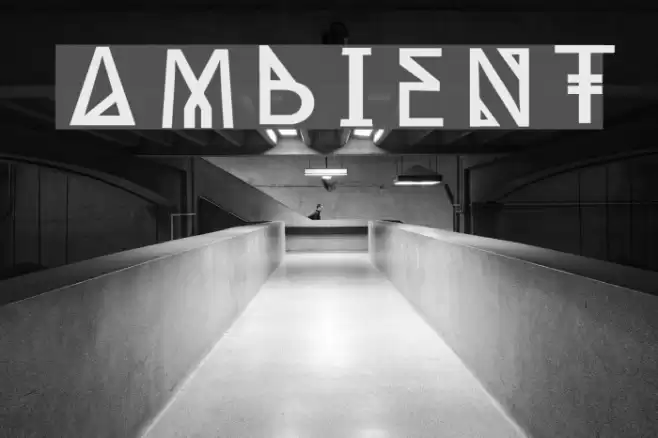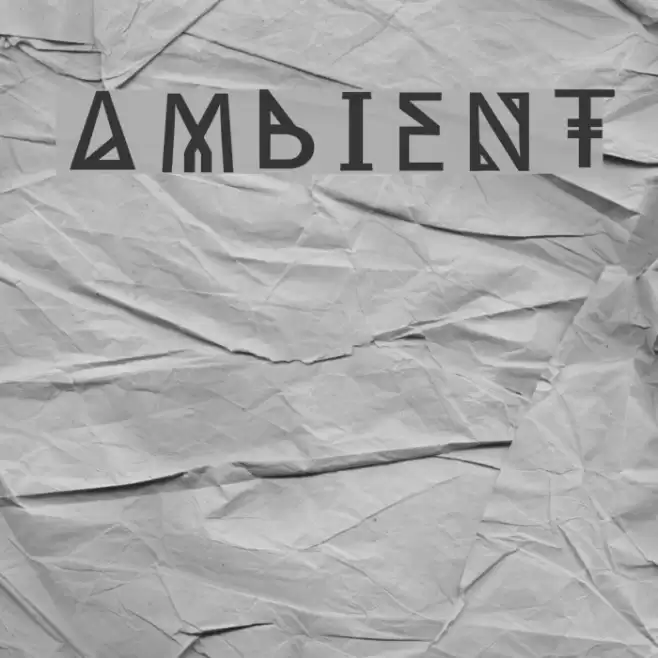
Ambient Font
Ambient Description
This font features a unique geometric style with bold, angular shapes and a modern aesthetic. The characters are crafted with a combination of sharp edges and smooth curves, creating a dynamic and futuristic look. The uppercase letters exhibit a strong presence, while the lowercase letters maintain a consistent design language. Numbers follow the same geometric theme, ensuring uniformity across all characters. The font's distinct style makes it suitable for creative and contemporary designs, offering a striking visual impact.
A geometric, modern font with bold, angular shapes and a futuristic aesthetic from Uncategorized fonts.
- Proposed Projects: Ideal for branding, logos, posters, and digital artwork where a modern and edgy look is desired.
- Use Case: Logos, Posters, Headlines